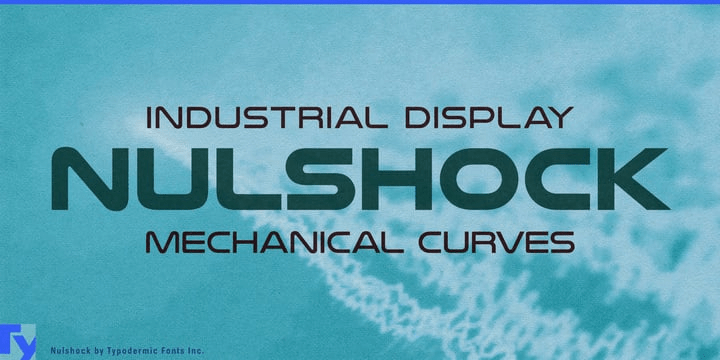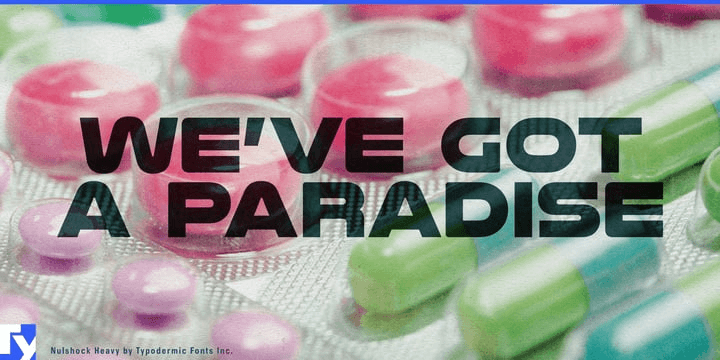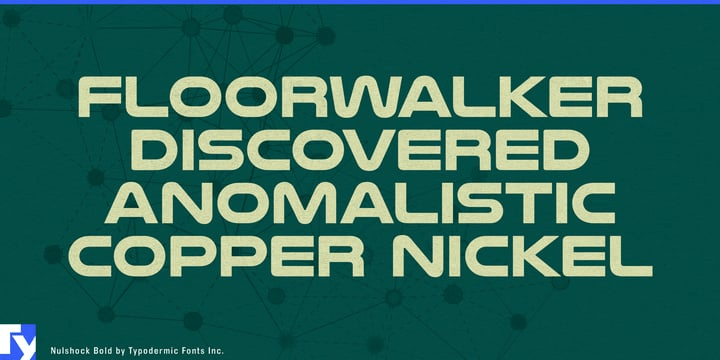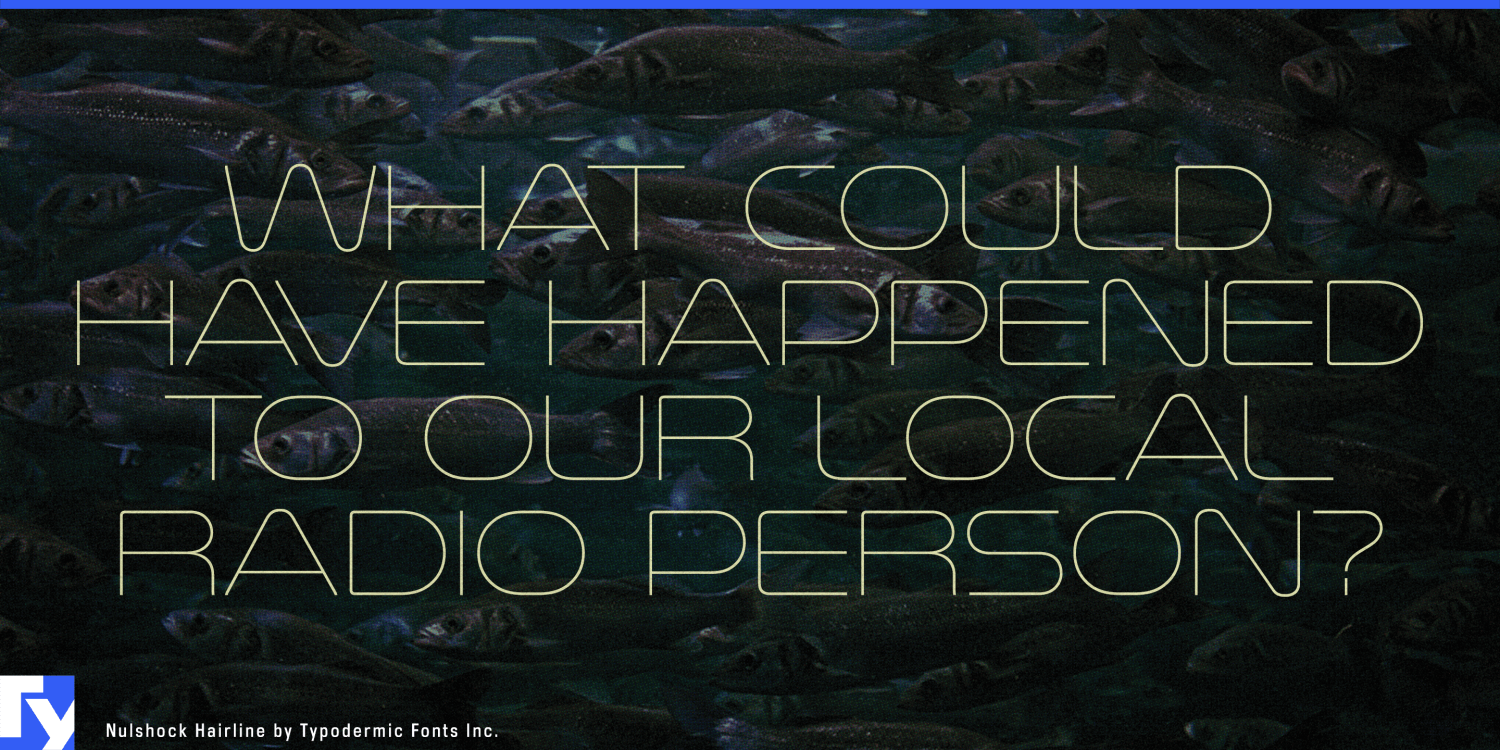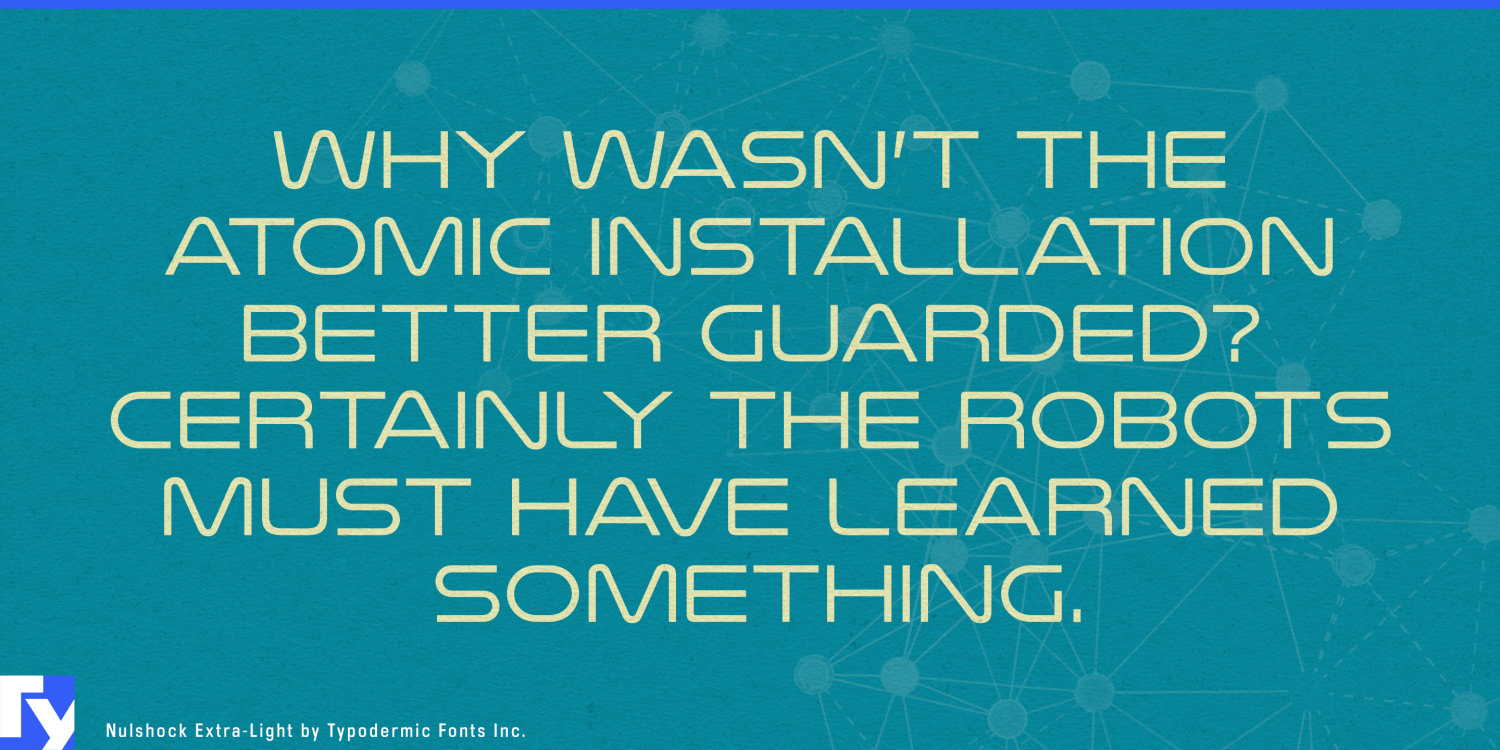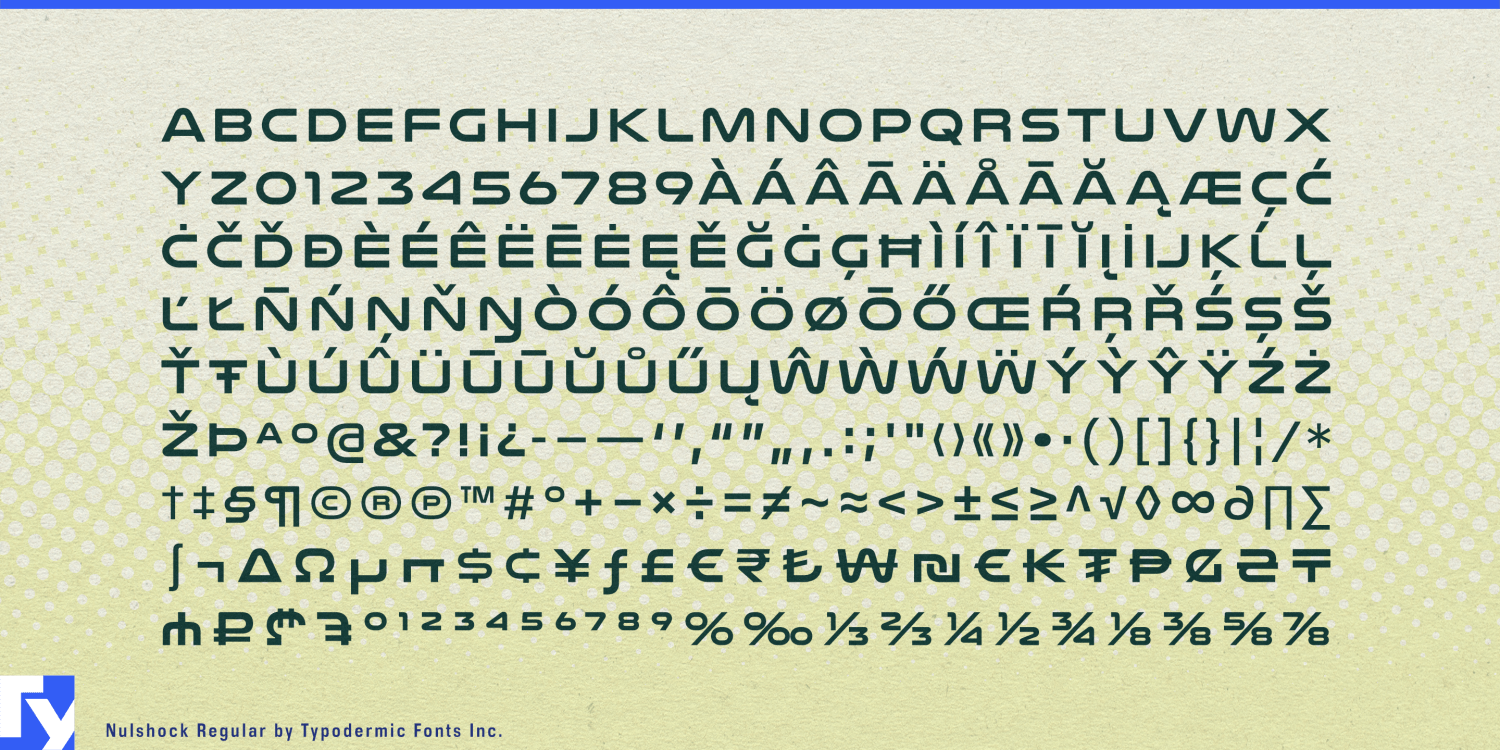
Nulshock
Buy NowForge your message with the raw power of Nulshock, a typeface that embodies the relentless drive of industrial innovation. Like a finely tuned machine, each letterform is crafted with laser-like precision, its sleek contours and razor-sharp edges cutting through the visual noise of the digital landscape.
This is typography built for the age of automation. Nulshock’s wide, commanding presence demands attention, its carefully calibrated curves and mathematically perfect proportions speaking the language of high-tech efficiency. From the control panels of cutting-edge factories to the user interfaces of tomorrow’s devices, Nulshock transforms mere text into a visual statement of technological prowess. With seven meticulously engineered weights at your disposal, Nulshock offers unparalleled versatility. The lightest weights whisper of advanced materials and streamlined design, while the heaviest weights roar with the authority of industrial might. Each weight is a tool, precisely calibrated for maximum impact across a spectrum of applications—from sleek product labels to commanding headlines that leap off the screen.
But Nulshock’s power extends far beyond aesthetics. Its extensive character set is a toolkit for the modern designer, packed with mathematical symbols, currency glyphs, and fractions. These are the building blocks of data-driven design, allowing you to construct infographics and technical documentation with the same typeface that adorns your boldest headlines. Nulshock speaks the languages of global industry. Its character set spans the linguistic needs of most Latin-based European writing systems, ensuring your message maintains its mechanical precision from the tech hubs of Silicon Valley to the industrial centers of Eastern Europe. This is a typeface built for a world where ideas and innovations know no borders.
In a landscape cluttered with timid, forgettable fonts, Nulshock stands as a monolith of typographic intent. It’s for designers who don’t just want to communicate—they want to revolutionize. For brands that don’t just enter markets—they disrupt them. Harness the power of Nulshock. Let your designs become engines of visual communication, precision-tuned to drive your message home with unstoppable force.`